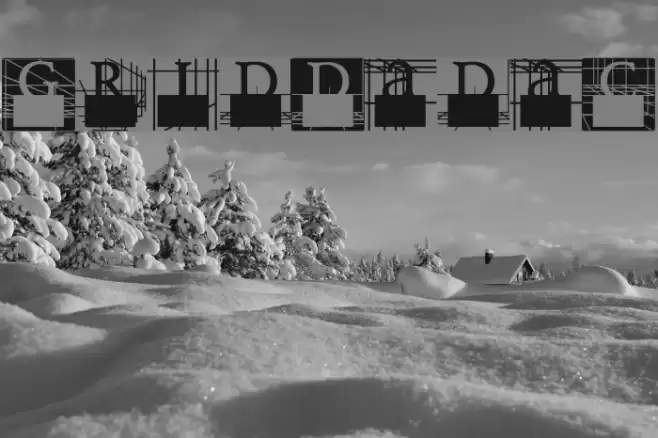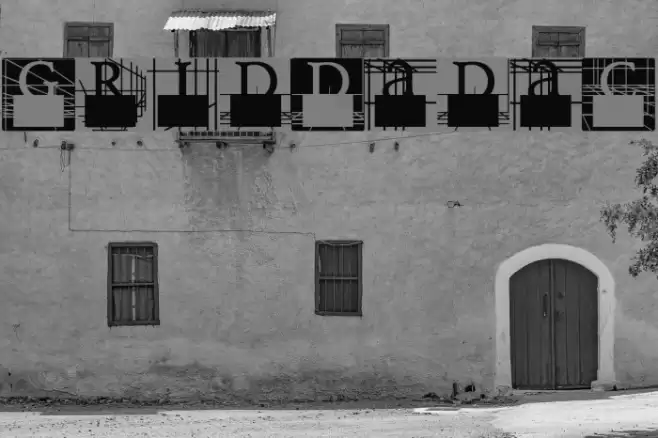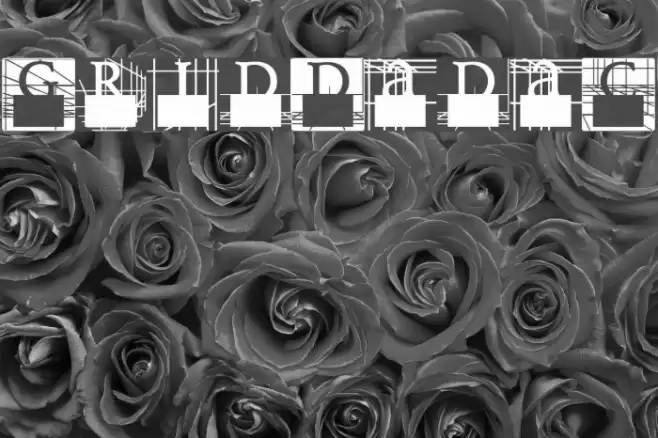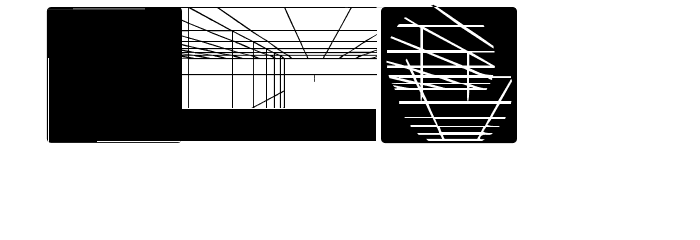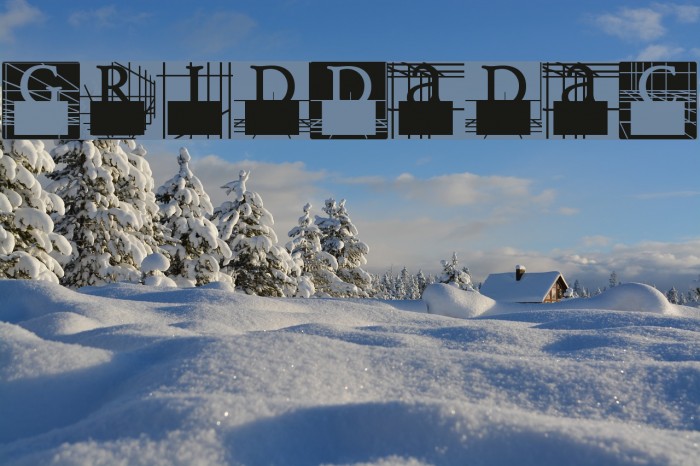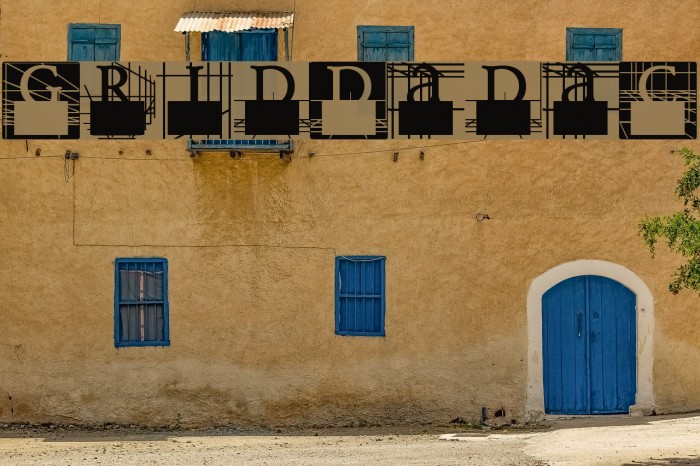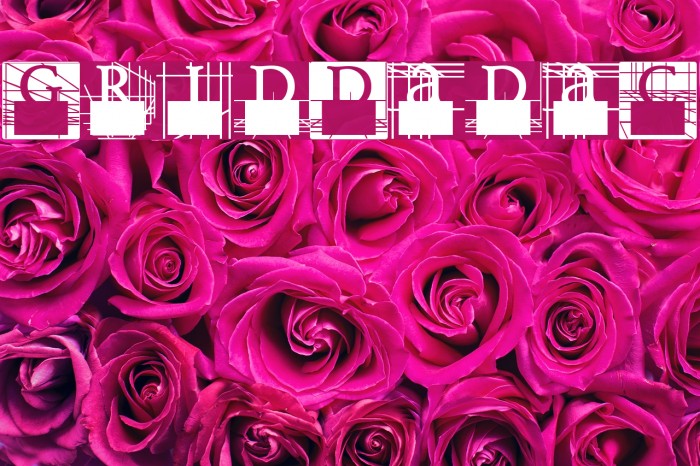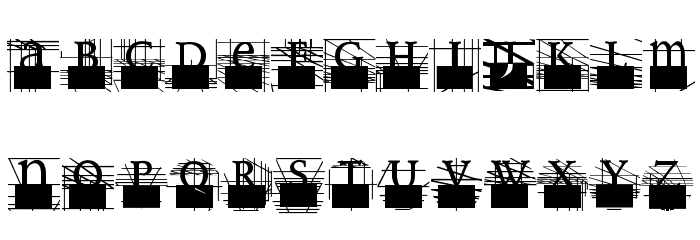
GridDadaC Font
GridDadaC Description
This font features a highly abstract and artistic design, characterized by a unique blend of geometric shapes and lines intersecting with traditional letterforms. Each character is encased in a square grid, with additional lines and patterns that create a sense of depth and complexity. The overall appearance is avant-garde, making it suitable for projects that require a bold and unconventional aesthetic. The intricate design elements may challenge readability at smaller sizes, but they contribute to a striking visual impact when used at larger scales.
An abstract, grid-based font with geometric and artistic elements from Uncategorized fonts.
- Proposed Projects: Ideal for modern art posters, experimental design projects, and avant-garde branding.
- Use Case: Logos, Posters, Artistic Displays